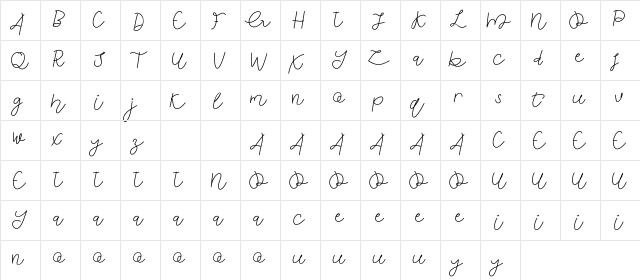
Anindya Meita Demo Regular
| Foundry | Edric Studio |
| Designer | Yasri Ainun N & Sarah Suci Pauziah |
Design Context for Anindya Meita Demo Typeface
Anindya Meita Demo is a composed and adaptable typeface that performs quietly and consistently across a wide range of design contexts.